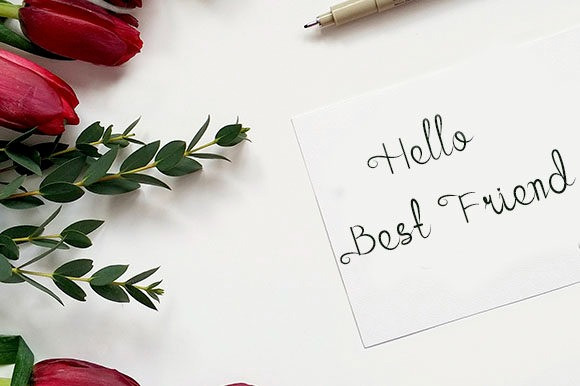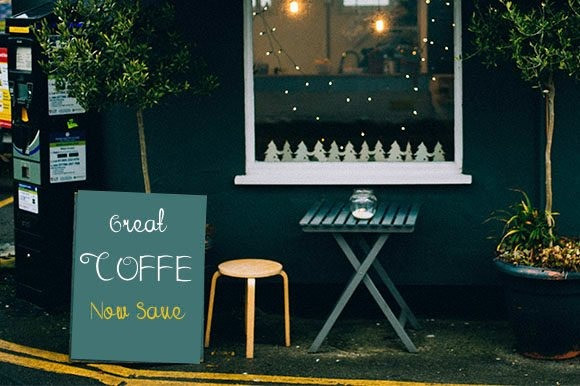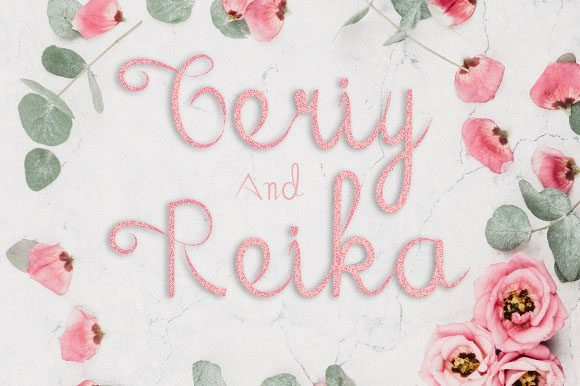
Lightmoon Calligraphy Font
Lightmoon is an elegant and sleek script font, perfect for exquisite projects that need an authentic look! Add it to your most creative ideas, and notice how it makes them come alive!